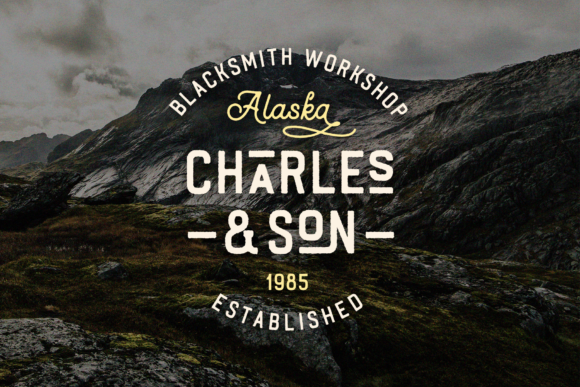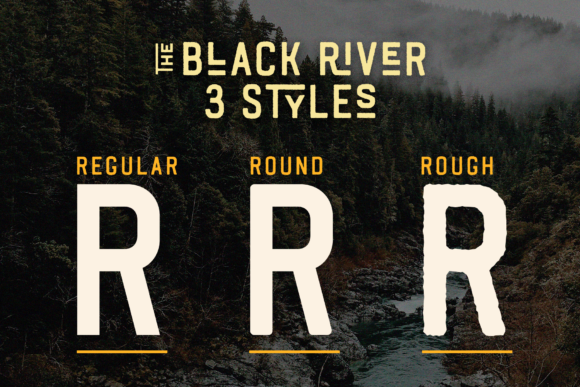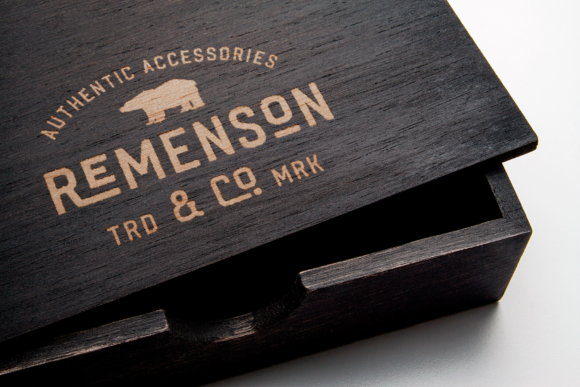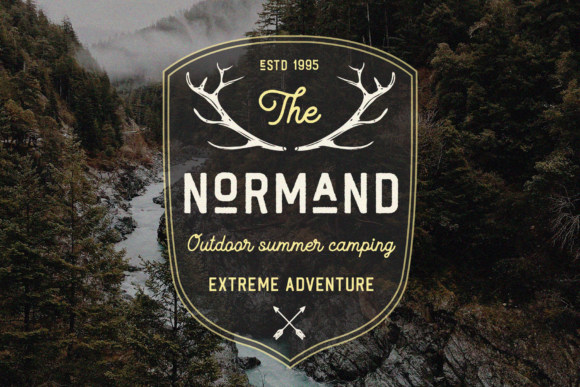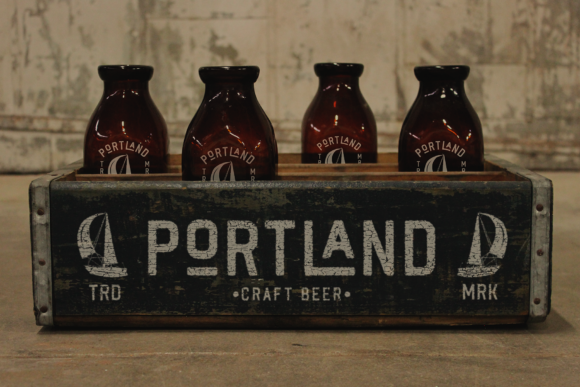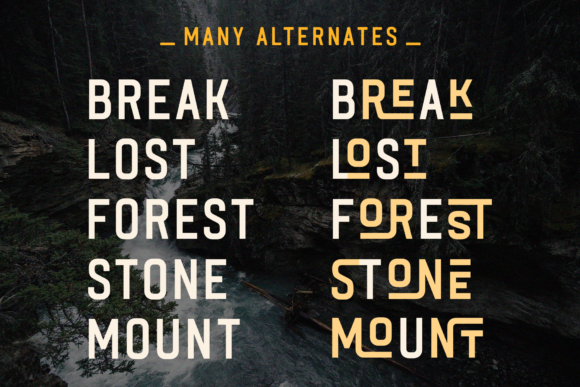
Introduction to Black River Font
As a designer, have you ever stumbled upon a project that requires a touch of elegance and sophistication? Perhaps it’s a branding campaign for a luxury watchmaker or a typography-driven advertisement for a high-end fashion brand. Whatever the case, you know that the right font can make all the difference in elevating your design to the next level.
Enter Black River Font, a cool and vintage styled display font that’s about to become your new go-to design resource. With its high quality design and transparent background, this font is perfect for adding a touch of sophistication to your creative project. And the best part? It’s PUA encoded, making it easy to access all of its glyphs and swashes with ease.
Key Features of Black River Font
- High-quality design with a transparent background, ideal for creative projects that require a modern and sleek look.
- Features a clean and minimalist design, perfect for use in logos, branding, and marketing materials.
Honest Review: Black River Font
I recently had the chance to work with the Black River Font, and I must say, it’s a high-quality addition to any design resource. The font’s unique design elements, such as its transparent background, make it perfect for creative projects where you need a clean and modern aesthetic.
- ✨ Clean and modern design that’s perfect for creative projects
- ✨ High-quality font that’s suitable for a wide range of designs
- ⚠️ Limited character set, which may not be ideal for projects requiring a wide range of special characters
Overall, I’m impressed with the Black River Font, and I think it’s a great addition to any design resource. While it may have a few limitations, its unique design elements and high-quality design make it a valuable resource for designers working on creative projects.
The Black River Font is suitable for a wide range of creative projects, including graphic designs, presentations, social media graphics, logos, posters, and brochures. Its high quality and transparent background make it an excellent choice for any design that requires a touch of sophistication and elegance.